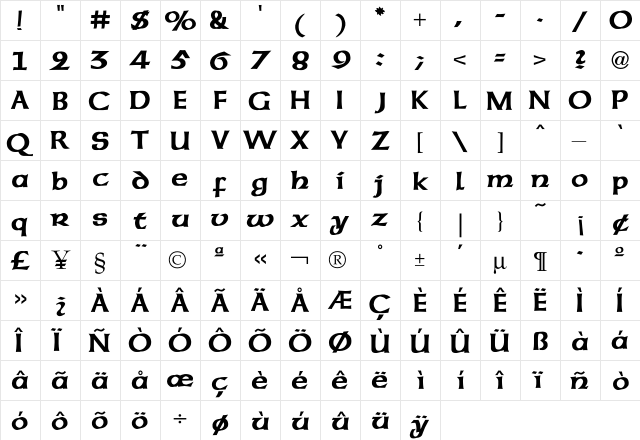
American UncialBold
Design Context for American Typeface
American is a composed and adaptable typeface that performs quietly and consistently across a wide range of design contexts. Its bold stroke weight gives it real presence on the page.